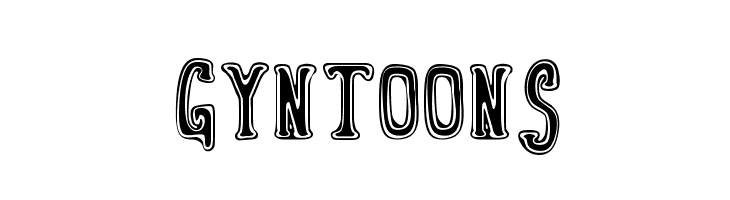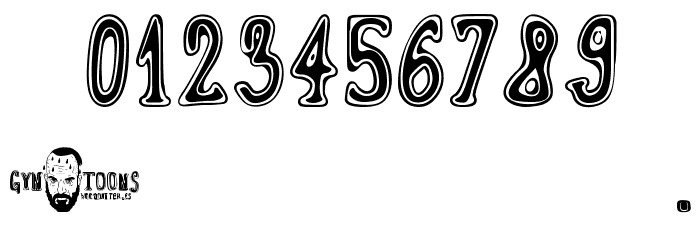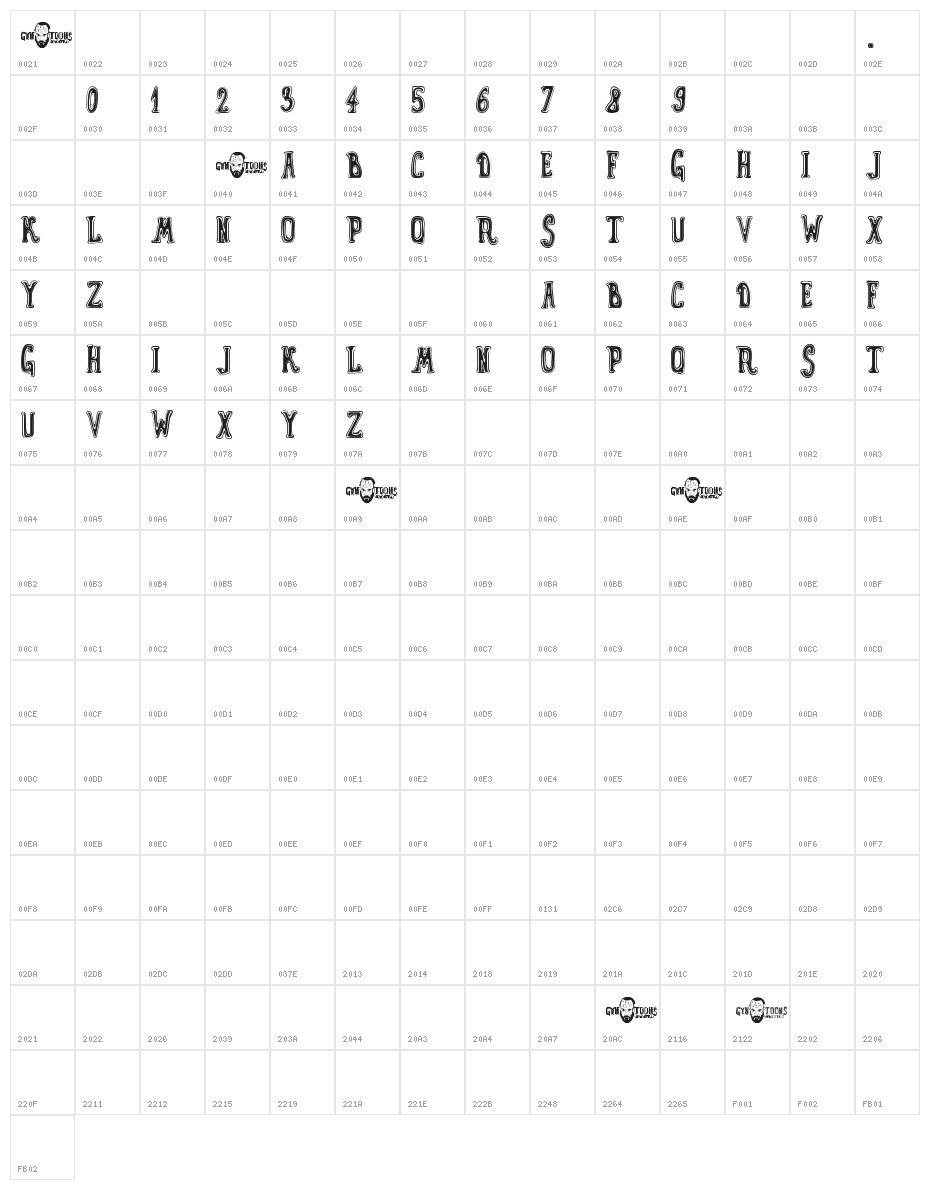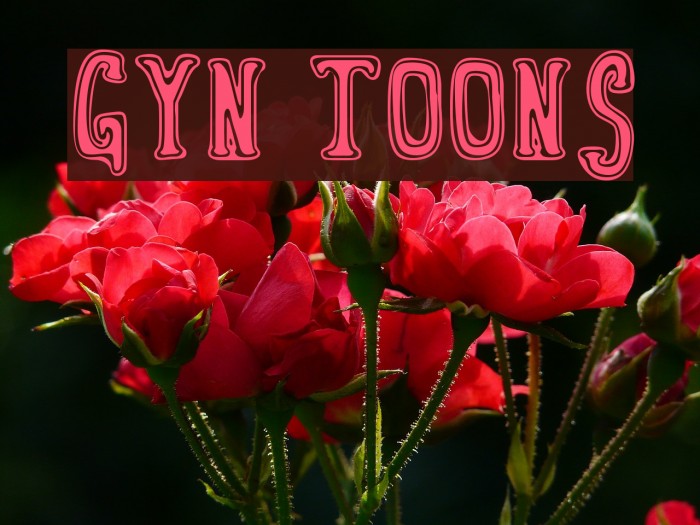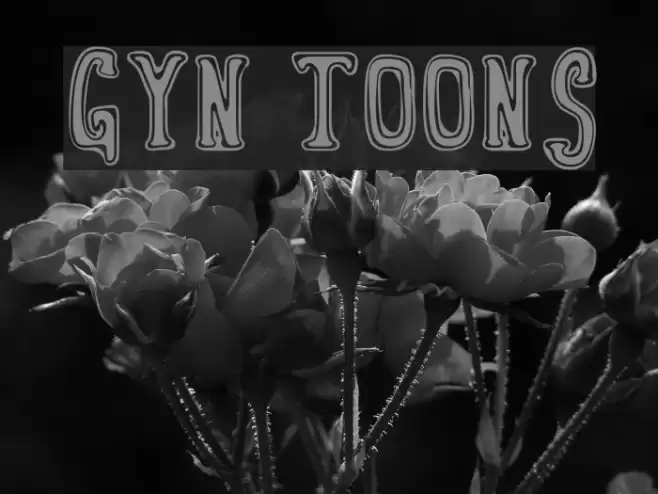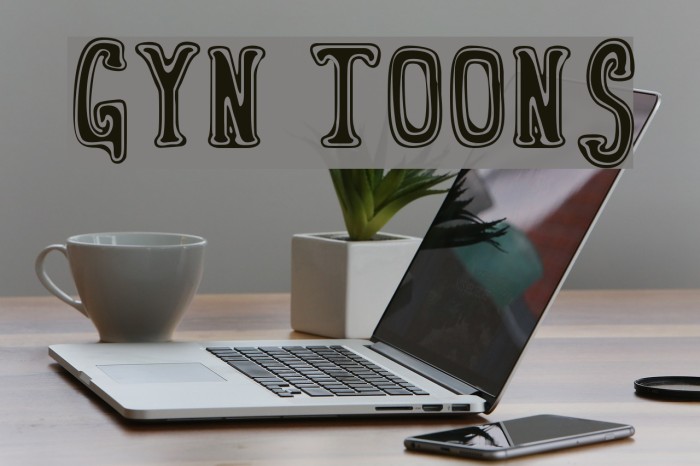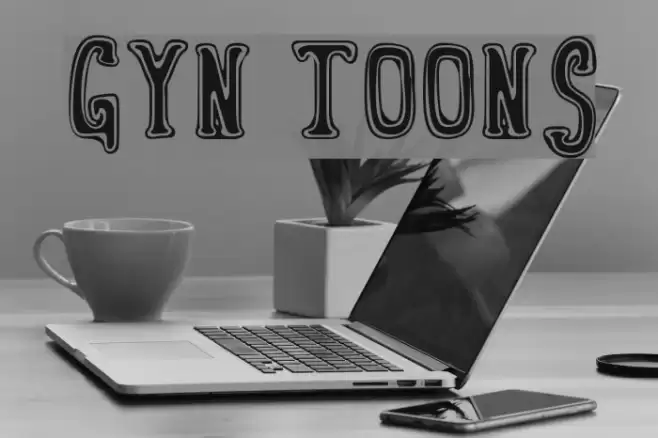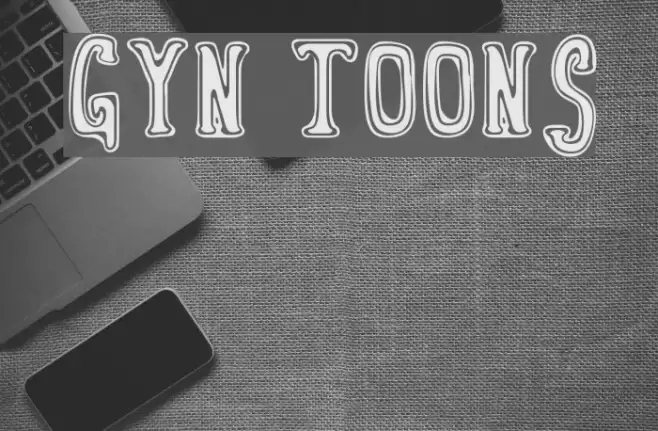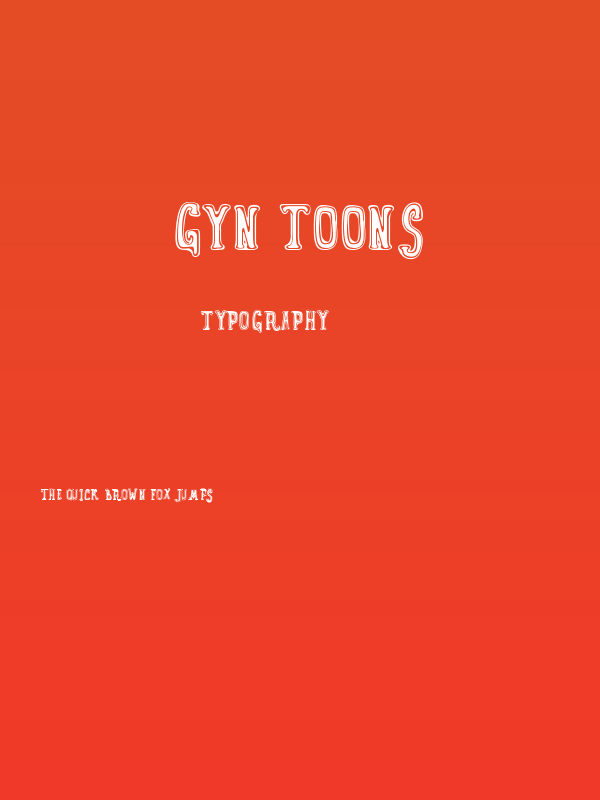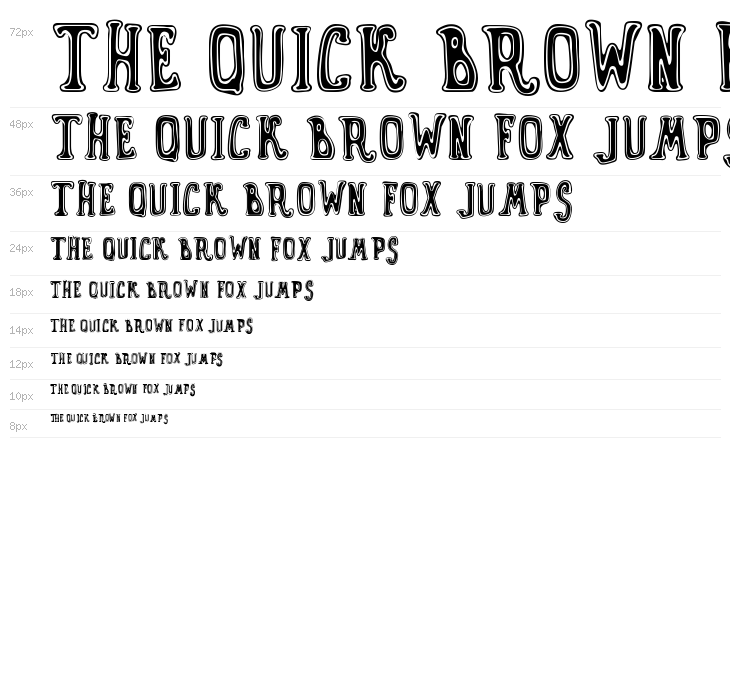
Gyn Toons Font
Gyn Toons Description
This playful and bold font features a cartoonish style with exaggerated curves and strokes. The letters are outlined, giving them a three-dimensional effect that adds depth and character. The uppercase and lowercase letters maintain a consistent whimsical aesthetic, making them suitable for fun and informal designs. The numbers and special characters follow the same style, ensuring a cohesive look across all elements. This font is perfect for projects that require a touch of humor and creativity, such as children's books, comic strips, or playful branding.
| Overall Style | Playful, Cartoonish |
| Proposed Projects | Ideal for children's books, comic strips, playful branding, and creative posters. |